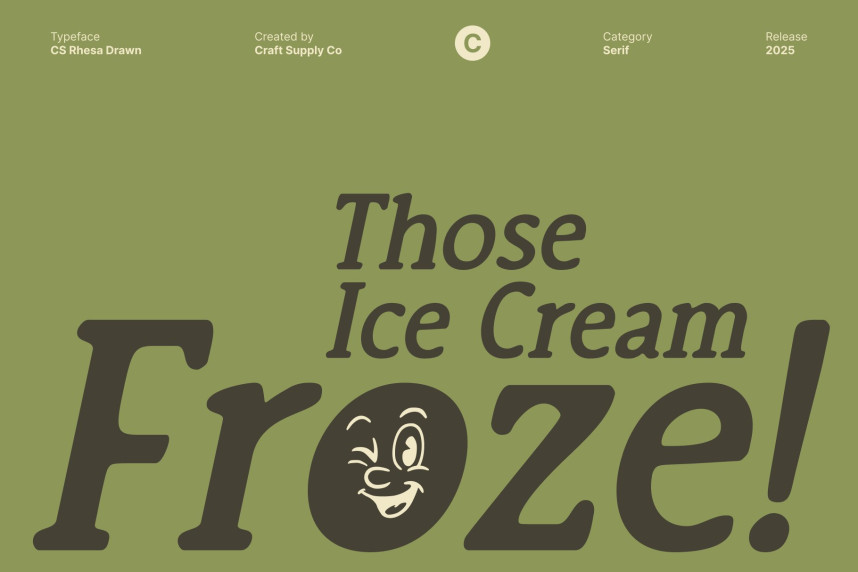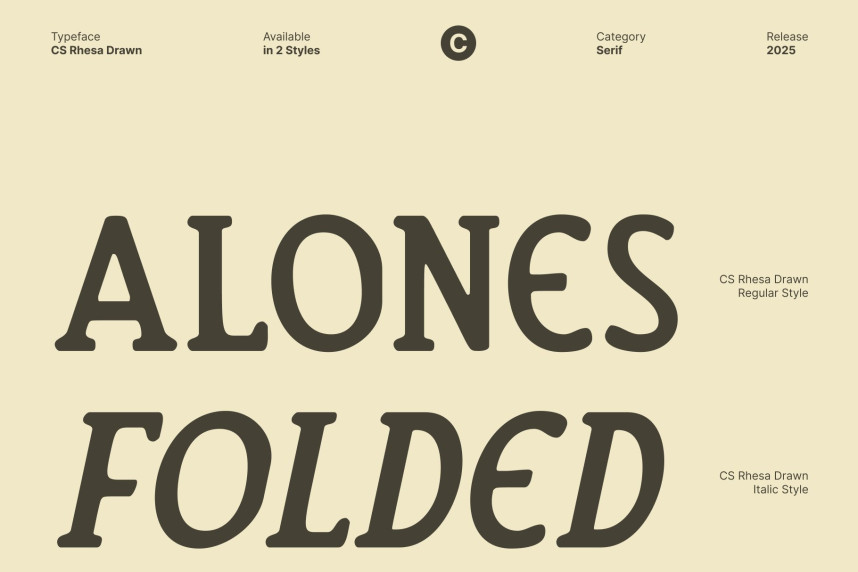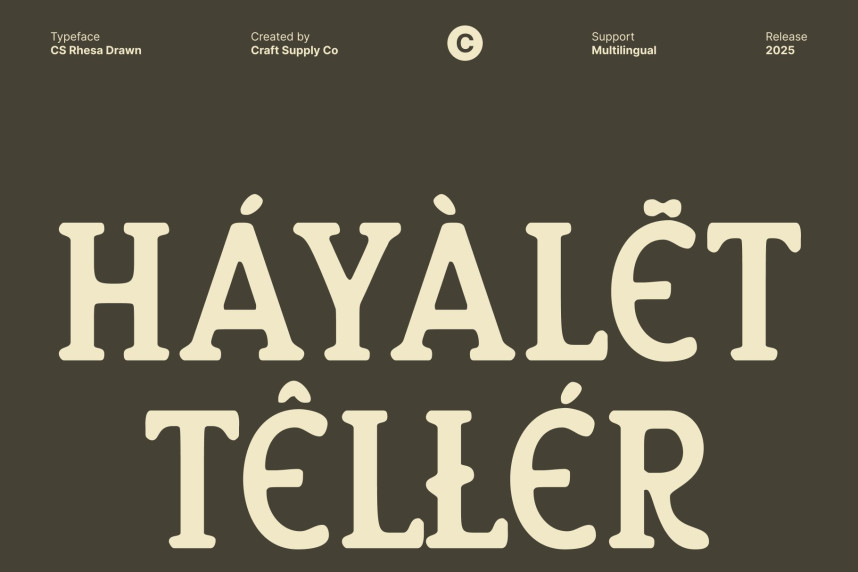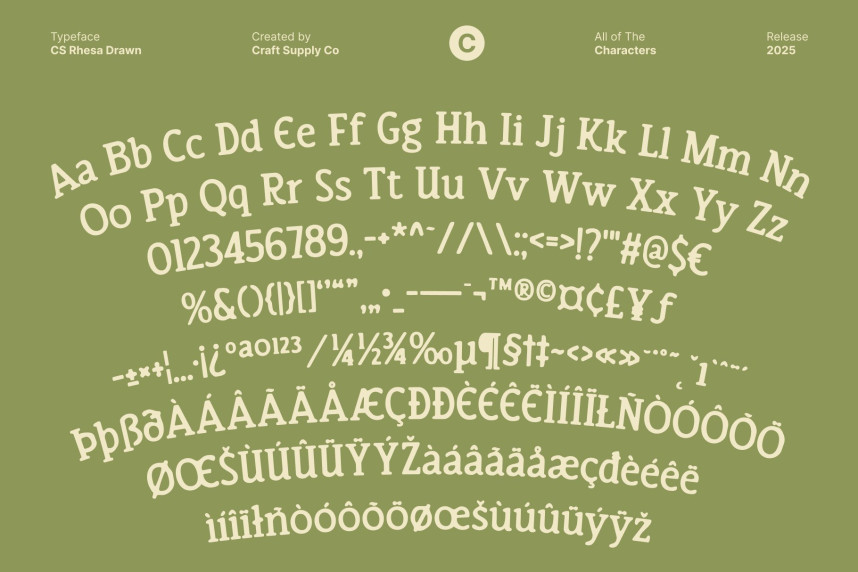
CS Rhesa Drawn Font
CS Rhesa Drawn Font – Retro Display Font with Playful Hand-Drawn Charm Bold Retro Style with Timeless Nostalgic Appeal. This is a retro display font that brings the timeless charm of vintage typography into modern design. With its bold shapes, smooth curves, and playful structure, this font instantly recalls the energetic styles of the past. Each letter carries a warm nostalgic spirit, making your design feel familiar, joyful, and visually engaging.